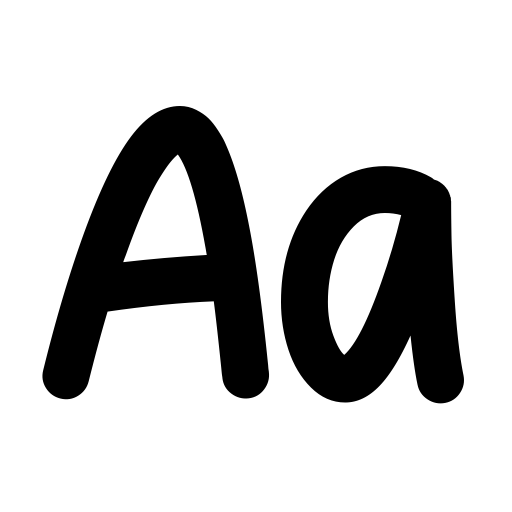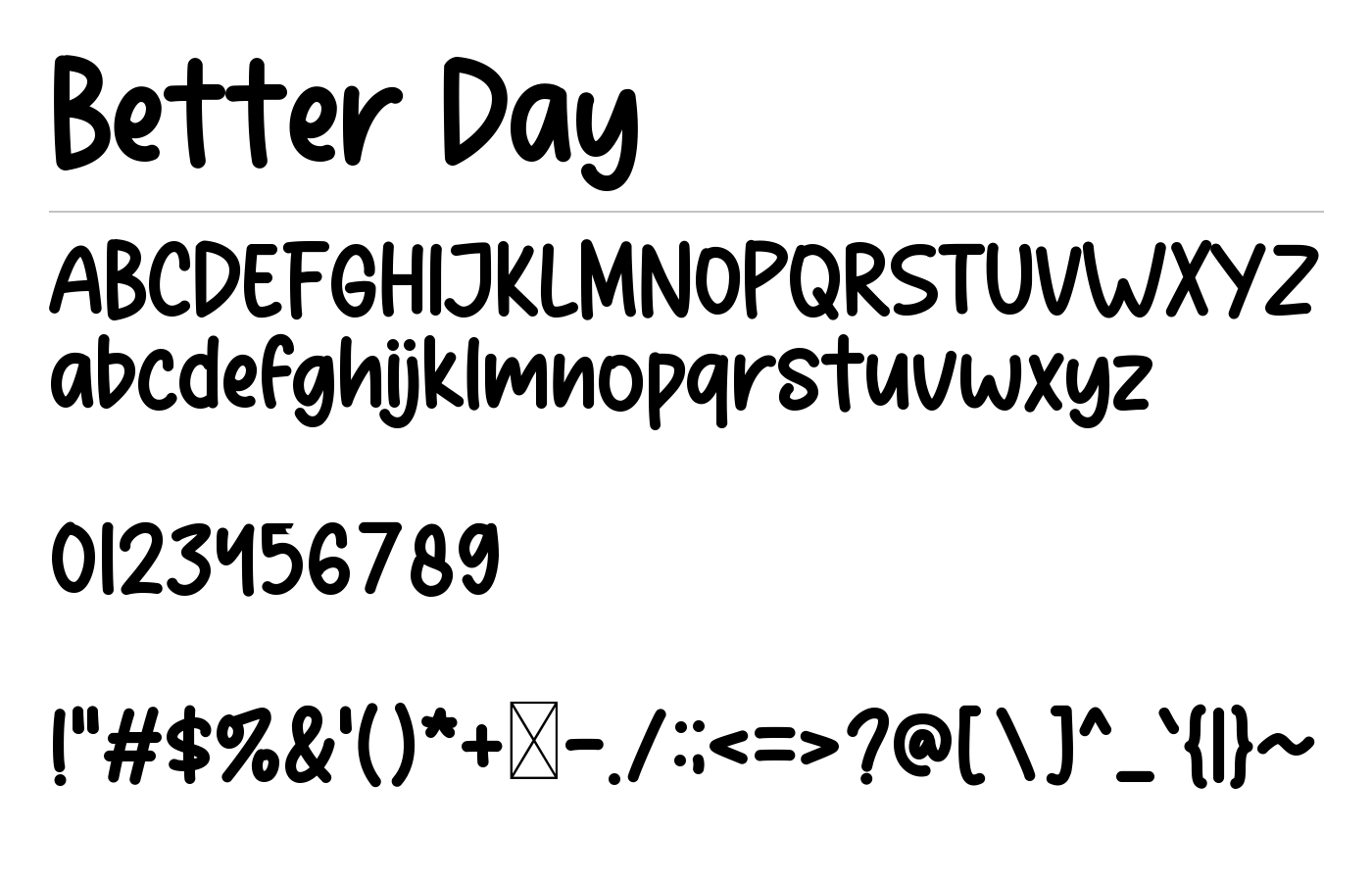
Better Day is a casual, friendly sans serif font with a hand-drawn, playful feel. Its rounded, slightly irregular letterforms and moderate weight give it an approachable and informal personality, making it ideal for creative projects, children's materials, and relaxed branding. This font works well for headlines, invitations, and any design wanting to convey warmth and cheerfulness.
Better Day Font
About Better Day Font